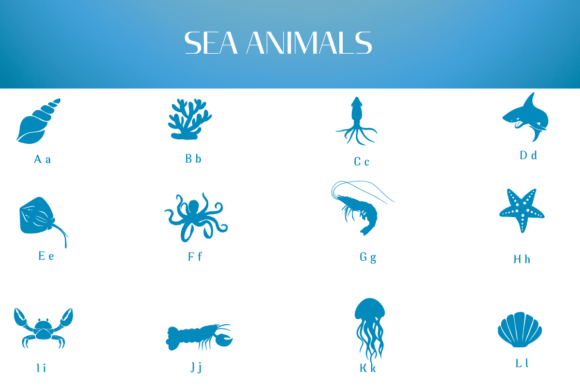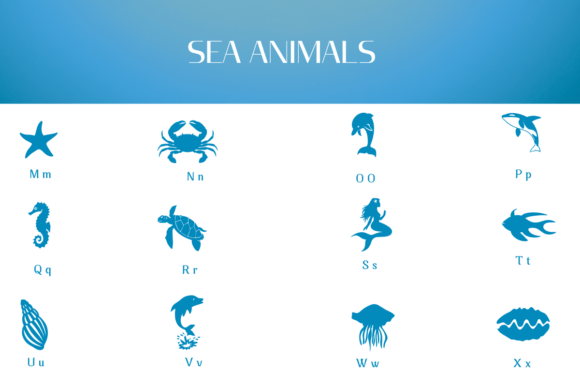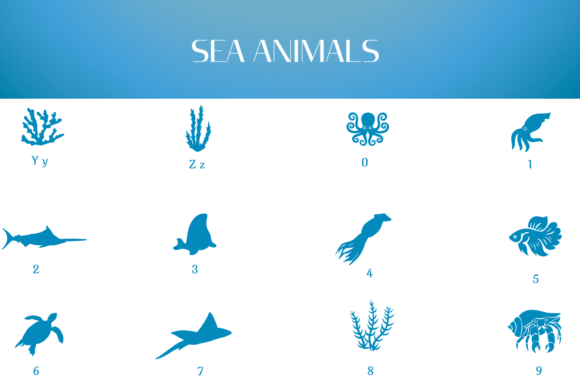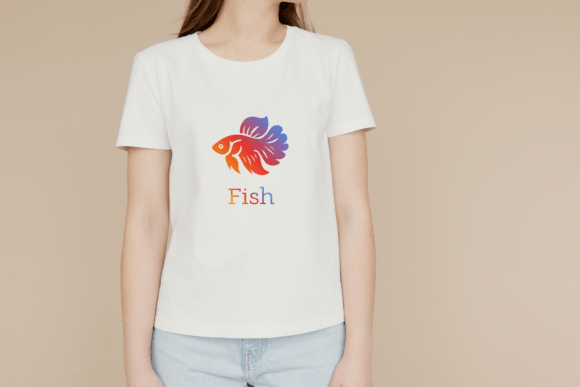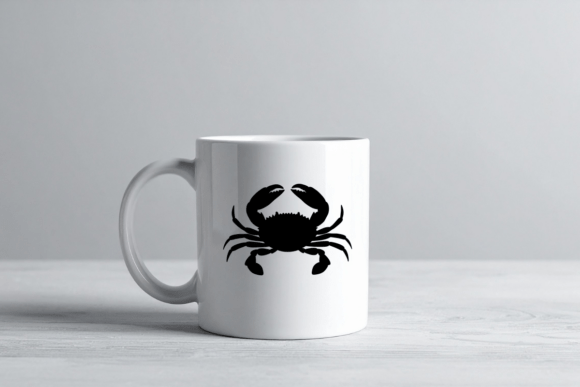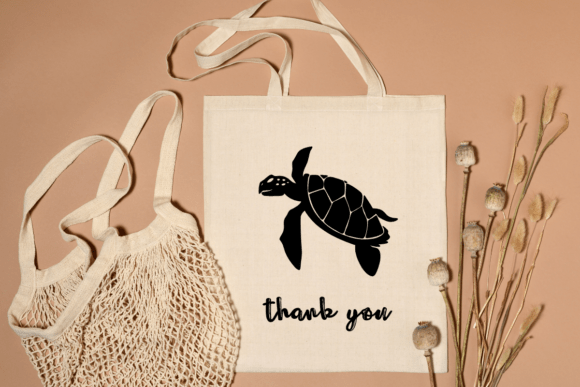
Introduction to Sea Animals Font
Have you ever been brainstorming ideas for a creative project and suddenly, a sea creature pops up in your mind? That’s exactly what happened to me when I stumbled upon the Sea Animals Font. As a designer, I was immediately drawn to its whimsical charm and versatility. This dingbats font is not just a design resource, but a treasure trove of inspiration waiting to be unleashed.
With its high-quality illustrations of sea animals, the Sea Animals Font is perfect for designers looking to add a touch of fun and playfulness to their work. Whether you’re creating a greeting card, designing a social media post, or even making a mug, this font is sure to bring a smile to your face. And the best part? It’s available for free download with a transparent background, making it easy to integrate into any design project.
So, what are you waiting for? Dive into the world of Sea Animals Font and discover the endless possibilities it has to offer.
Key Features of Sea Animals Font
- High-quality, vector-based design resource suitable for a creative project
- Comes with a transparent background, allowing for easy customization and composition
- Includes a range of sea animals, from dolphins to whales, and fish to octopuses
- Designed at a high resolution of 300 DPI, ensuring crisp and clear graphics
- Perfect for use in various design applications, such as logos, illustrations, and educational materials
Honest Review: Sea Animals Font
I recently had the chance to test out the Sea Animals Font for a creative project, and I’m excited to share my thoughts. Overall, I was pleasantly surprised by the quality and versatility of this design resource.
- ✨ High-quality illustrations of various sea creatures, from dolphins to whales and fish
- ✨ A transparent background option, making it easy to use in any design context
- ⚠️ Limited customization options, which may not be ideal for designers who want to add their own unique touch
- ⚠️ Some of the illustrations may not be as detailed as I would have liked
Overall, I was impressed with the Sea Animals Font and would recommend it to designers working on creative projects that involve sea creatures. While it may not be perfect, it’s a great resource to have in your design toolbox.
The Sea Animals Font is a free design resource that can add a touch of whimsy to your creative project. With its high-quality, transparent background, you can easily customize it to fit your needs.
Here are a few tips for getting the most out of the Sea Animals Font: use it in conjunction with other design elements, such as images or illustrations, to create a cohesive look. Experiment with different font sizes and colors to add visual interest to your design.
Common Use Cases for Sea Animals Font
The Sea Animals Font is perfect for use in children’s educational materials, such as worksheets or activity sheets. It can also be used in marketing materials, such as social media graphics or flyers, to add a touch of whimsy and fun.